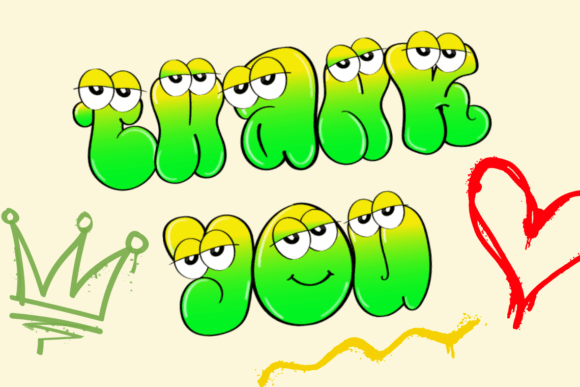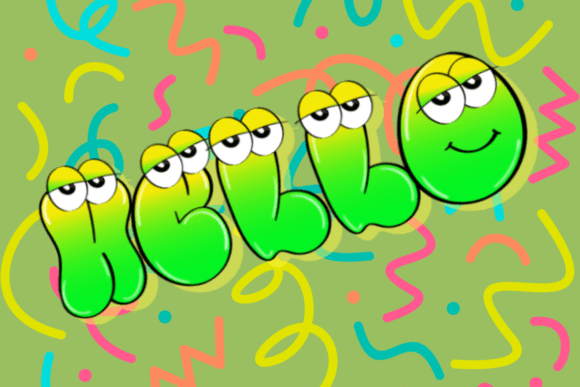
Graduation Cute Cartoon Font: Add a Playful Touch to Your Academic Milestone Celebrations
Are you looking for a fun and engaging way to celebrate academic milestones? Look no further than the Graduation Cute Cartoon Font! This adorable and vibrant color font is designed with playful cartoon-inspired characters that are perfect for creating delightful graduation-themed projects. From invitations to greeting cards and posters, this font adds a delightful touch to any celebration.
What Makes This Font So Special?
The Graduation Cute Cartoon Font is a unique and colorful font that is sure to make your designs stand out. Its playful cartoon-inspired characters are designed to bring a smile to your face and add a touch of whimsy to your projects. Whether you’re creating a graduation invitation, a congratulatory poster, or a fun greeting card, this font is sure to make your design pop.
Design Ideas Using the Graduation Cute Cartoon Font
The Graduation Cute Cartoon Font is versatile and can be used in a variety of design projects. Here are a few ideas to get you started:
- Graduation invitations: Create custom invitations that set the tone for a fun and celebratory graduation party.
- Posters: Design eye-catching posters to congratulate graduates on their achievement.
- Greeting cards: Create personalized greeting cards for graduates to commemorate their special day.
- Social media graphics: Design engaging social media graphics to share with friends and family.
| Font Name | Graduation Cute Cartoon Font |
| Author | VividDoodle |